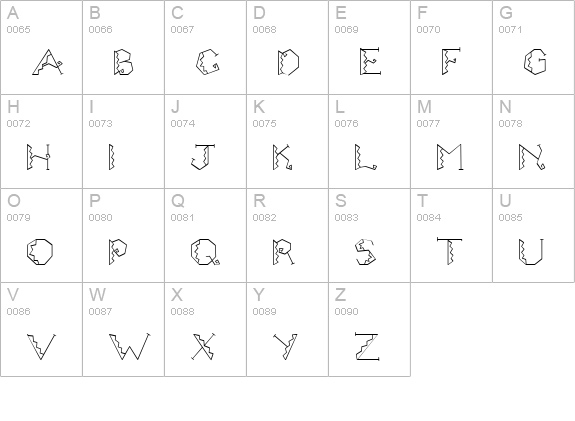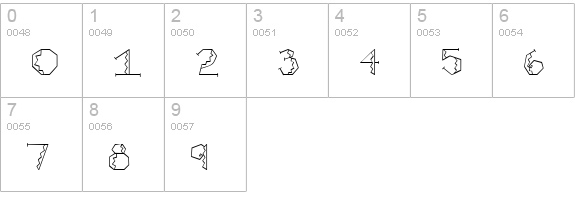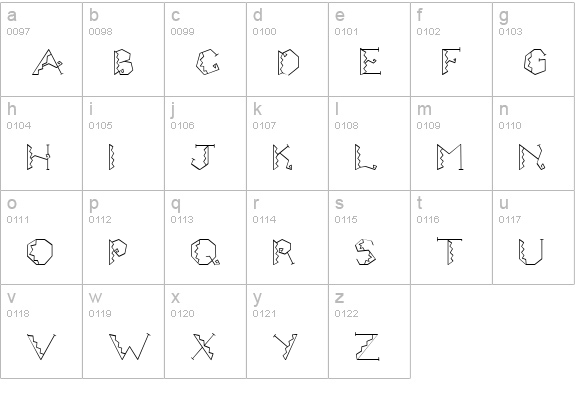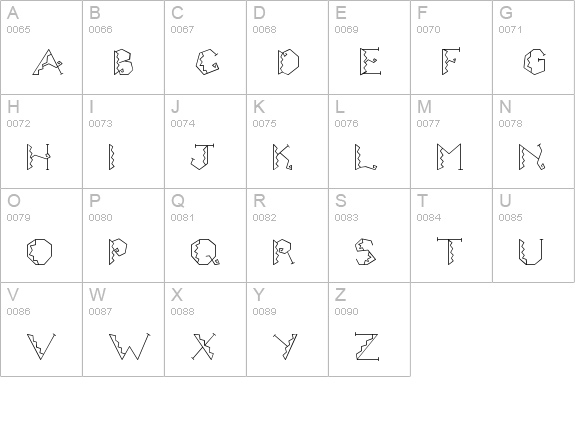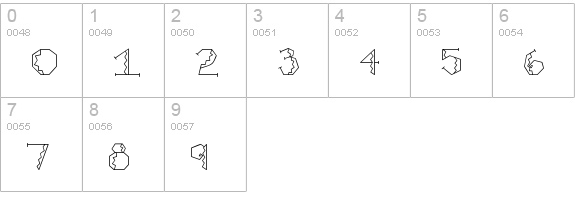
The CK Zig Zag font is a unique and eye-catching display typeface that will add a touch of creativity to any project. With its playful zigzag design, this font is perfect for adding a fun and modern twist to your designs. The CK Zig Zag font is freely available to download at FontsMarket.com, making it a great choice for designers looking for a stylish and versatile font option. Whether you're working on a poster, logo, or social media graphic, the CK Zig Zag font is sure to make your design stand out. Get your hands on this free font today and start creating stunning designs with ease!